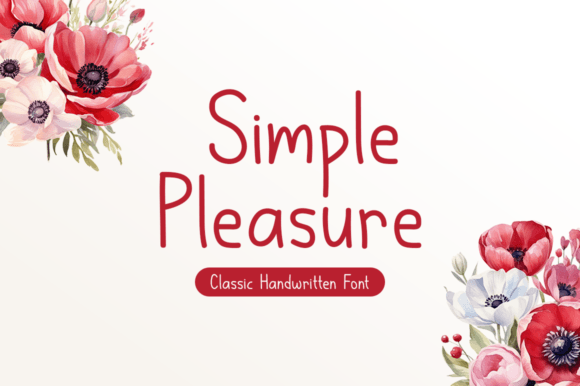
Step into the world of captivating visual expression with Simple Pleasure Font, a delightful handwritten font designed to transform your creative projects into captivating masterpieces. Whether you're crafting eye-catching banner ads, designing stunning logos, or creating inviting social media posts, let Simple Pleasure's enchanting strokes add a touch of playful charm to your work.
Effortlessly elegant and strikingly versatile, Simple Pleasure Font is the perfect choice for those seeking a typeface that effortlessly elevates their designs. Its whimsical yet sophisticated curves bring a sense of authentic charm to any project, enhancing its visual appeal with a touch of uniqueness.
Unleash your imagination and explore the boundless possibilities that Simple Pleasure Font holds. Its remarkable versatility allows for seamless integration into a diverse range of projects, making it the ideal choice for both personal and professional endeavors. Let Simple Pleasure's charismatic personality elevate your marketing materials, branding initiatives, website designs, and personal projects to new heights of visual allure.